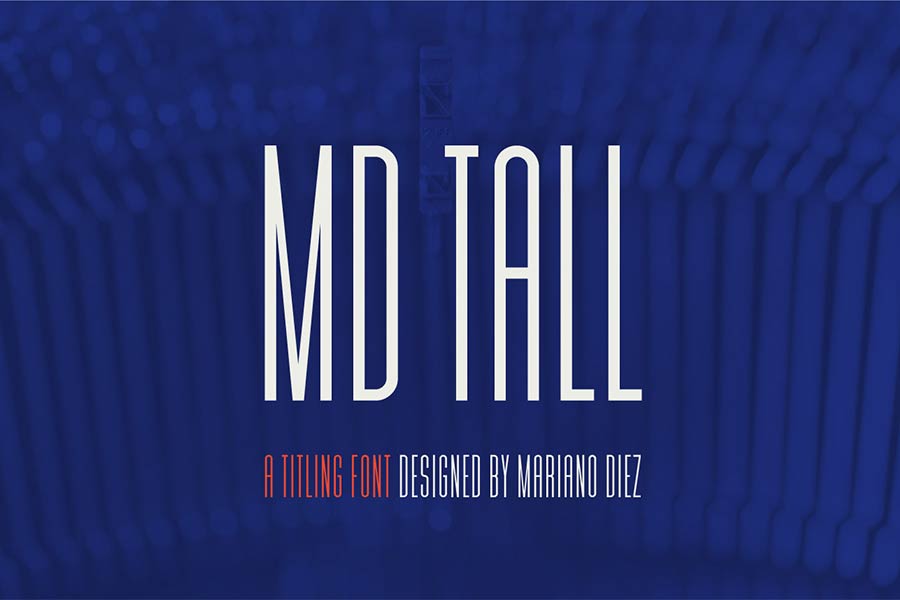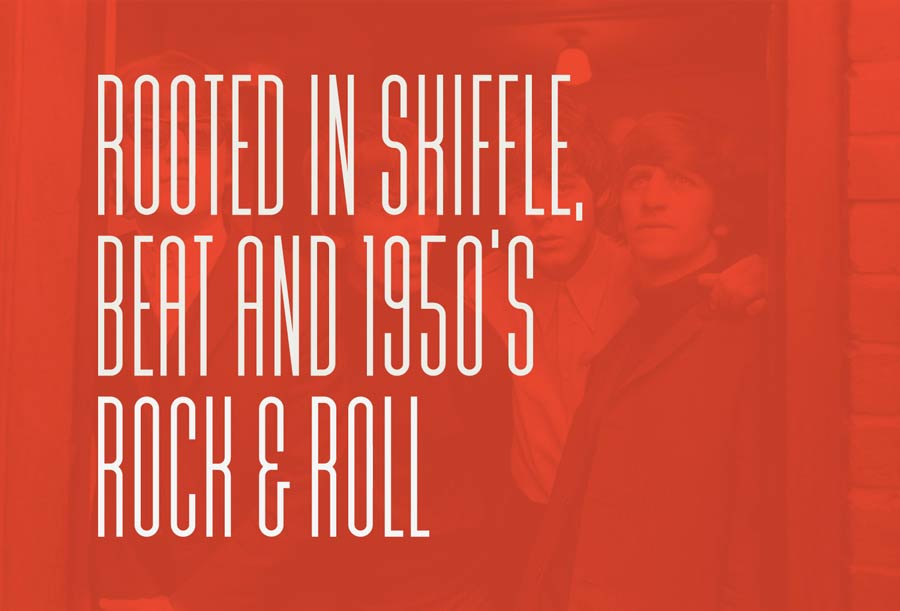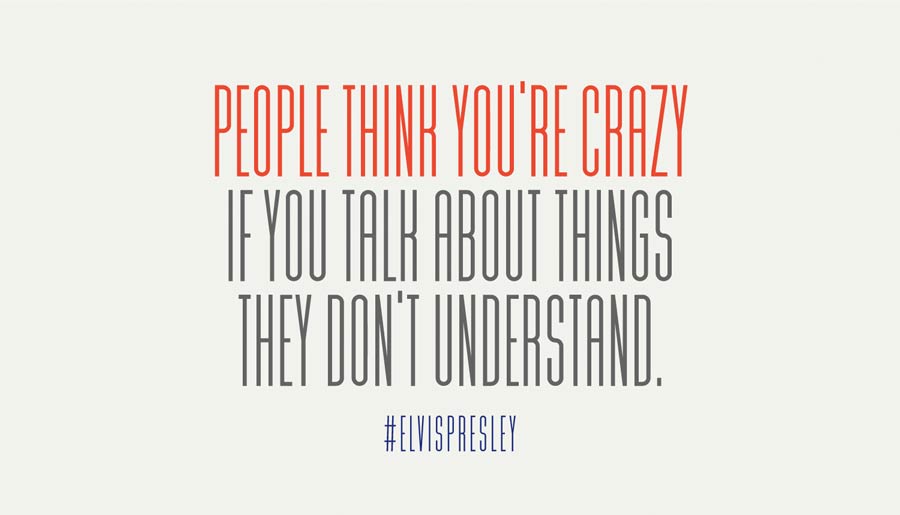
MD Tall is a free display font suitable for displays with very limited space. It’s a uppercase-only typeface with extremely condensed letter design, similar to what you will on movie posters.
MD Tall comes with the standard and extended latin characters. You can download this font for free and use it on both personal and commercial use.